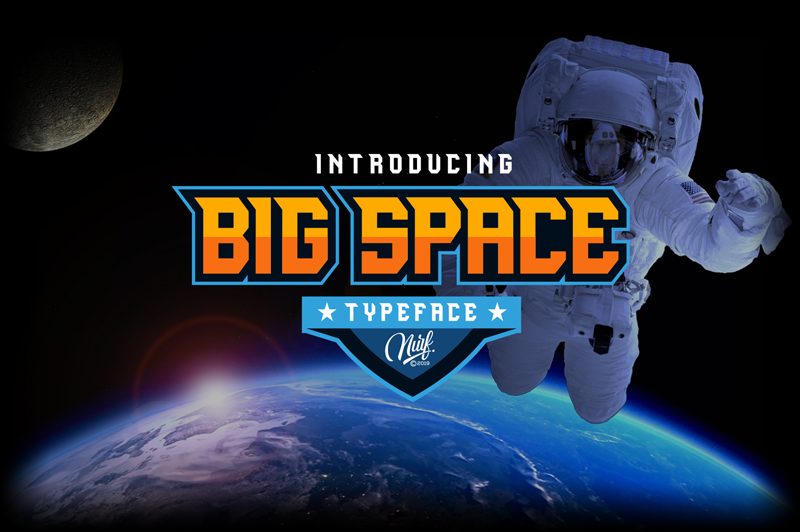
Preview and download Big Space Font. Created by Nurf Designs in Techno Sci-fi styles with Free for personal use license.
Big Space is a font that is made in a sporty, sci-fi, modern, bold, cutting edge and futuristic style. It is suitable for titles, logos, quotes, posters, jersey numbers, etc. There are no alternative characters and it�s very easy to use. This demo font is for PERSONAL USE ONLY! But any donation are very appreciated. Paypal account for donation : paypal.me/nurfdesigns Link to purchase full version and commercial license: https://www.creativefabrica.com/product/big-space/ref/197666/ |